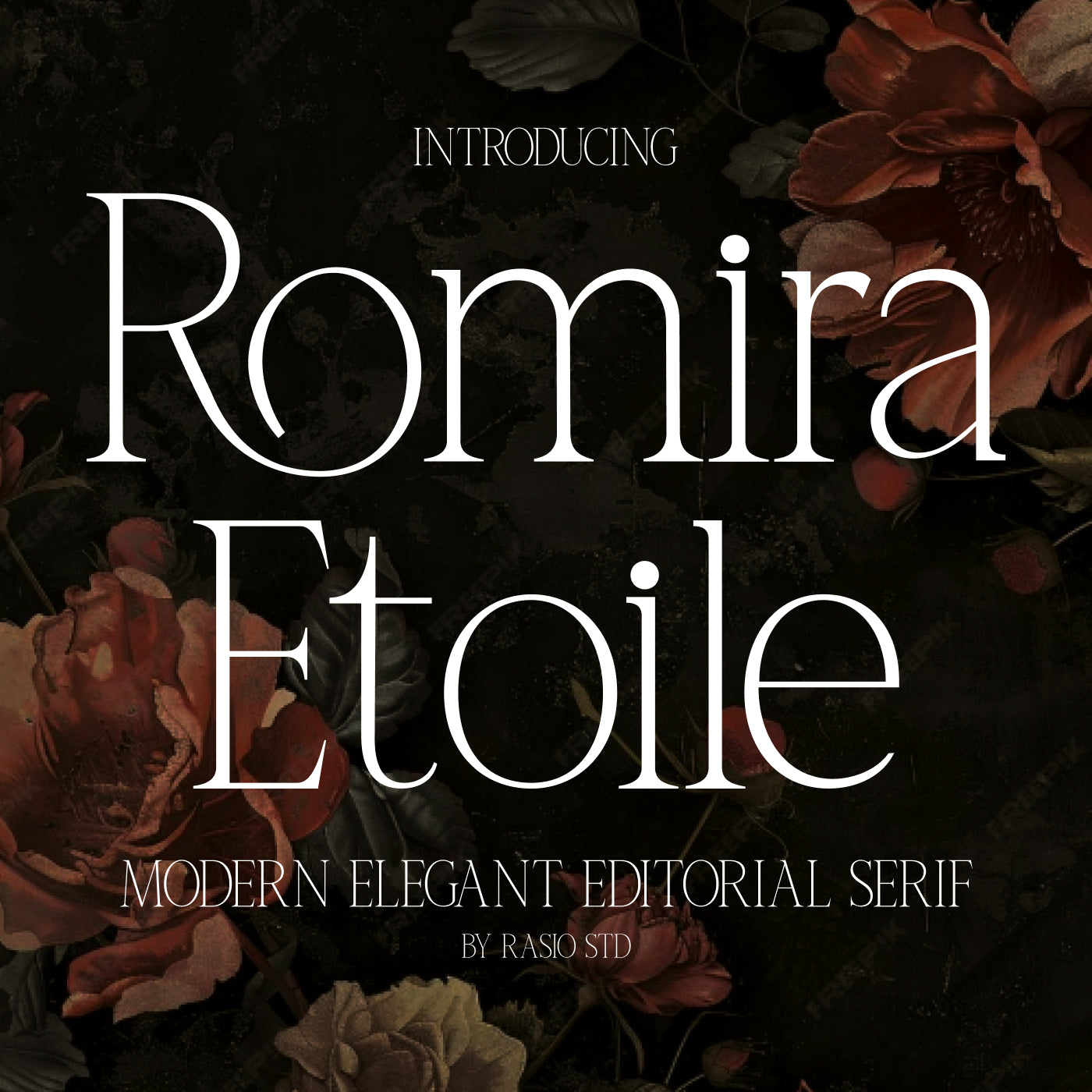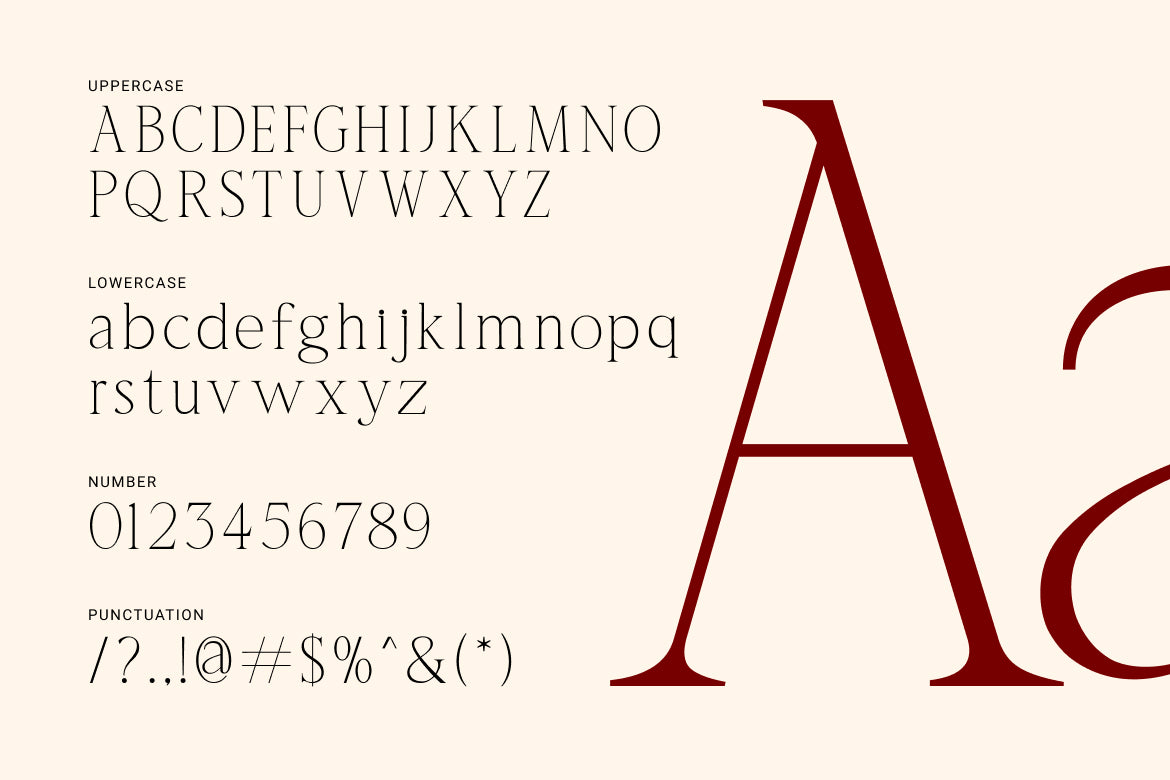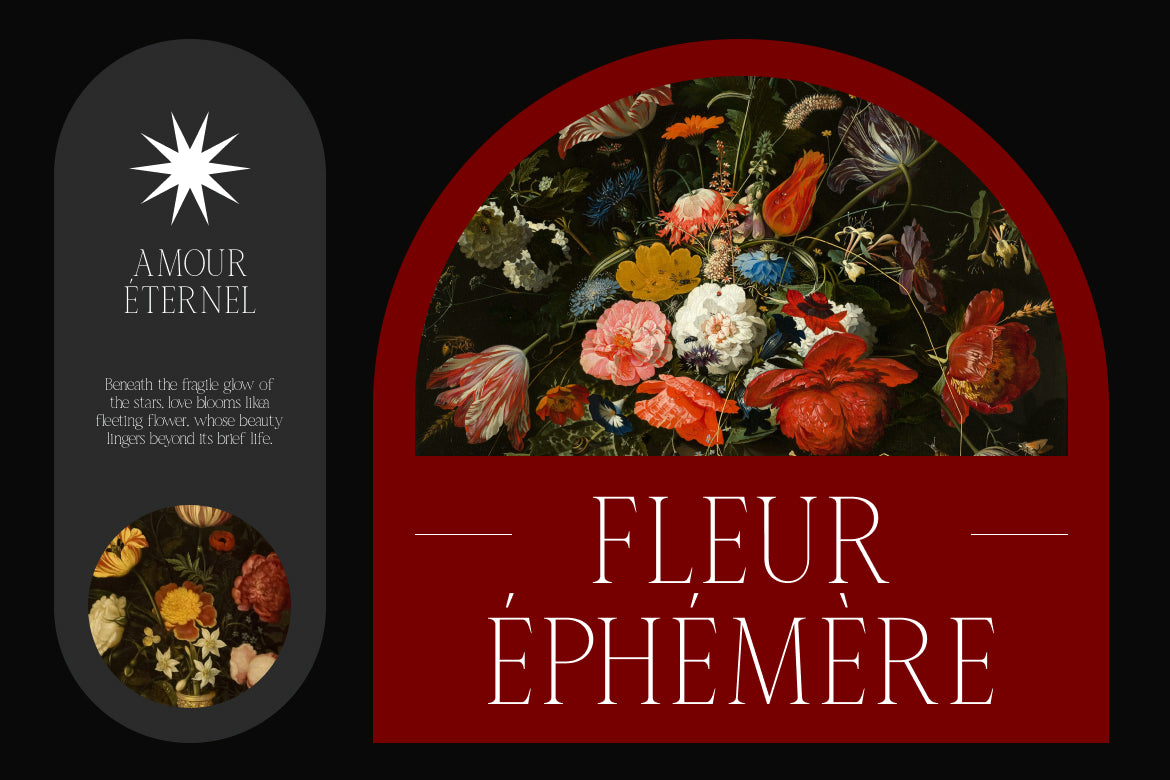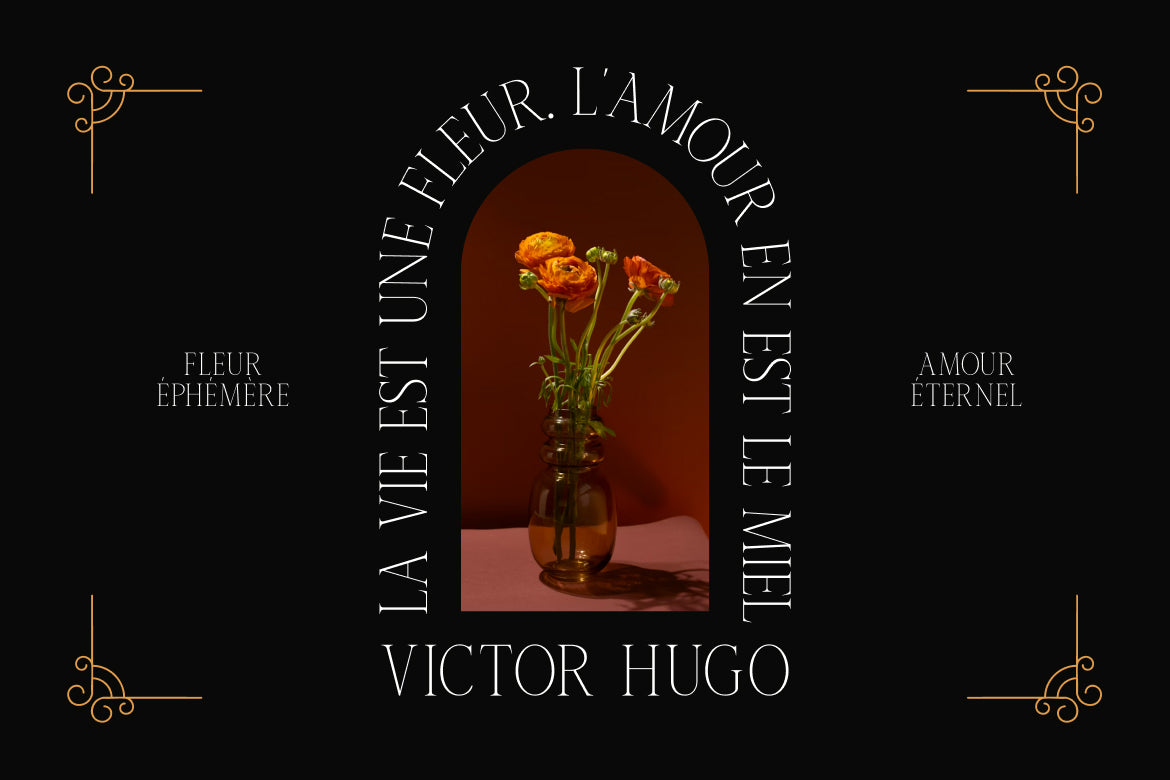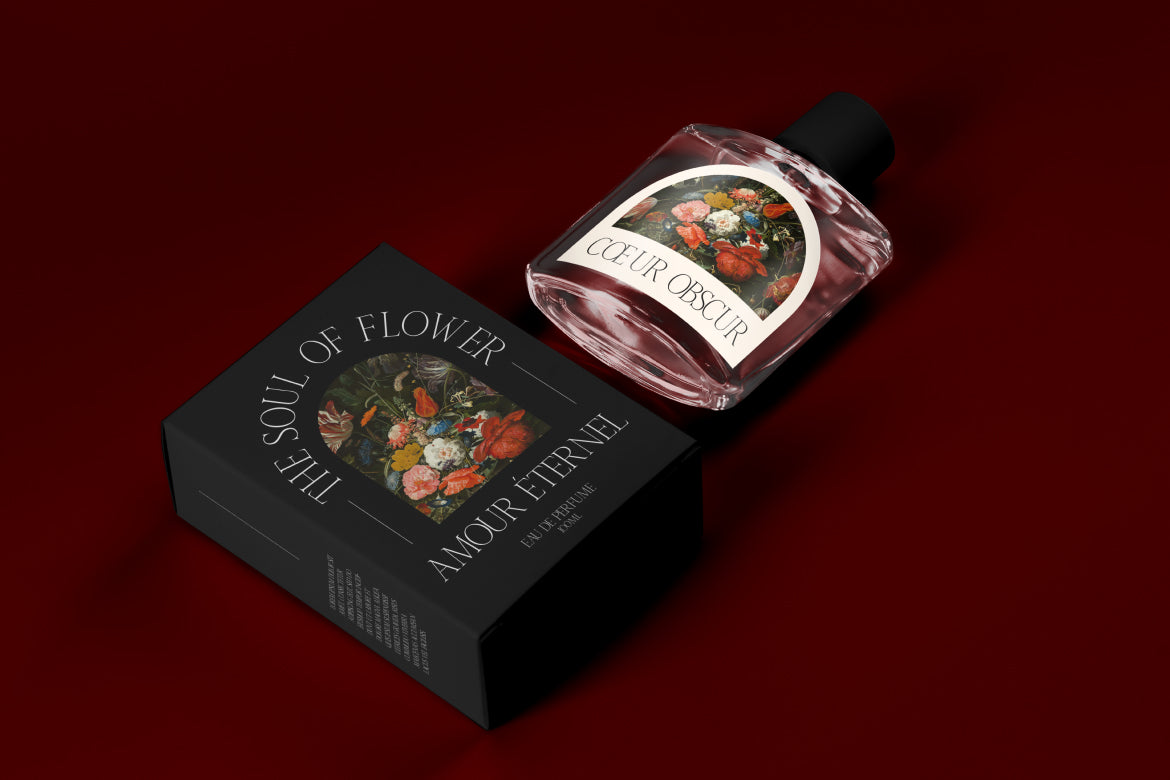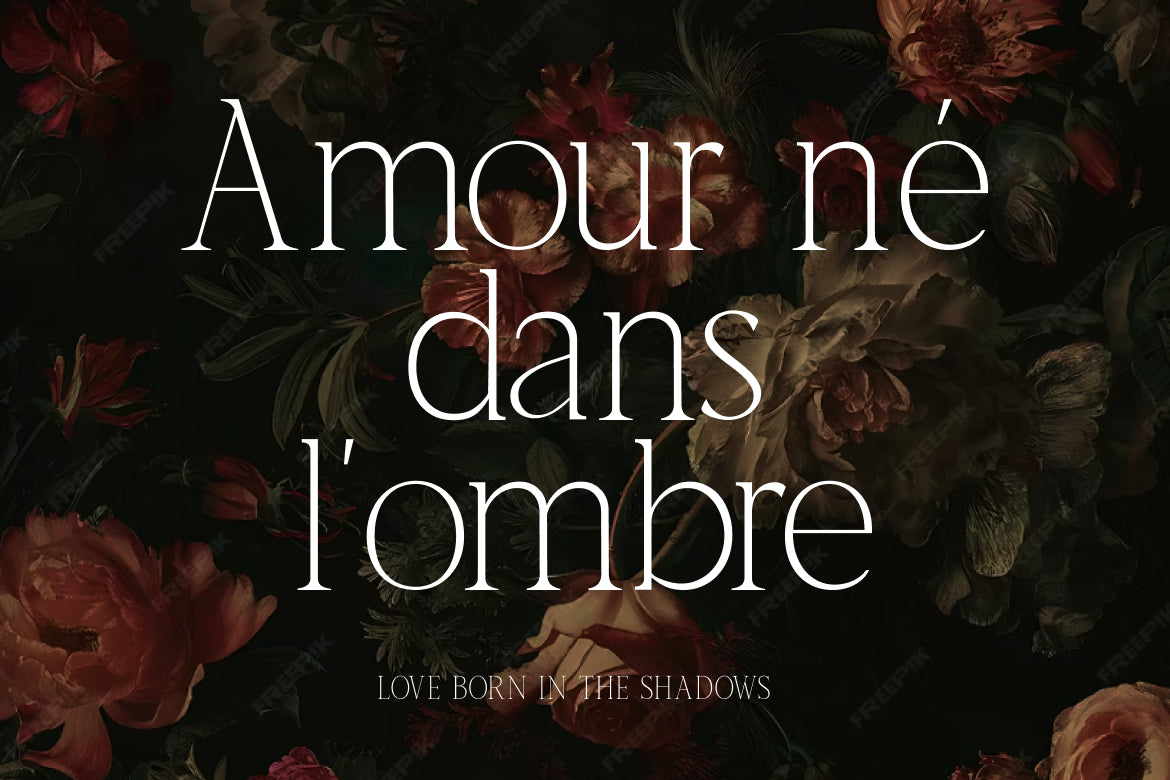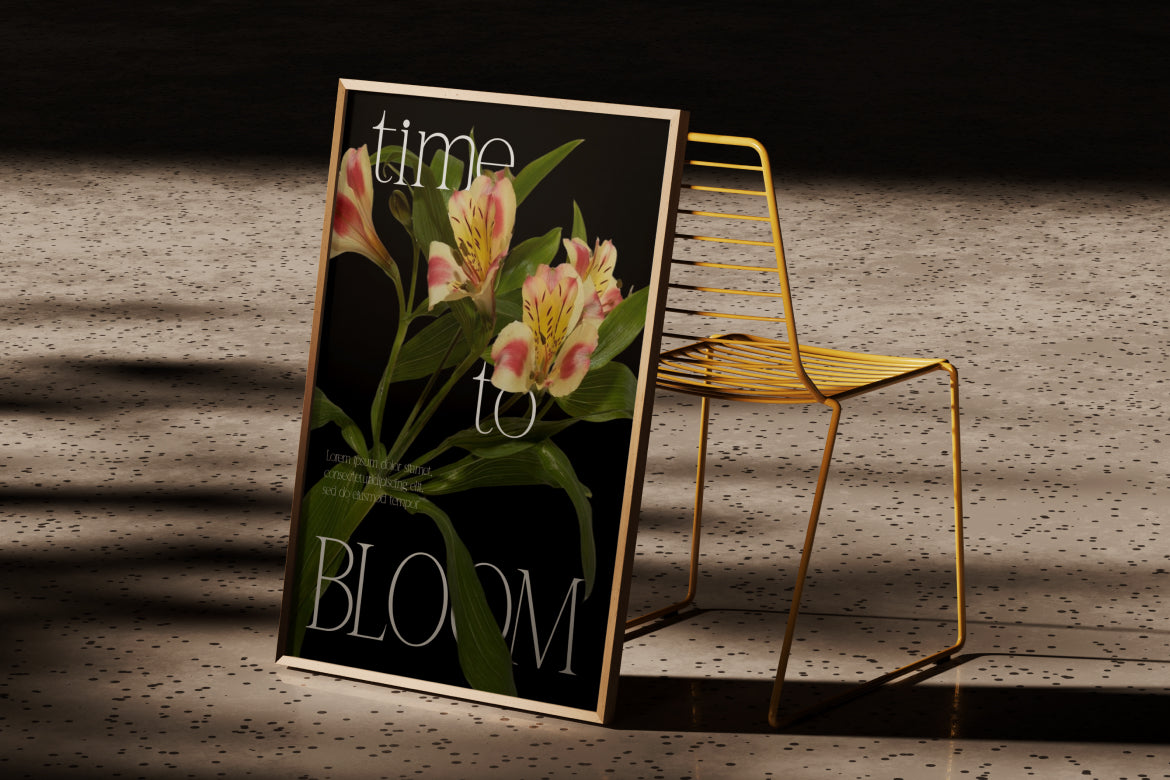
Romira Etoile Modern Elegant Editorial Serif Font
Romira Etoile Modern Elegant Editorial Serif Font is a refined high-contrast serif typeface designed for sophisticated branding, editorial publishing, and luxury visual communication. Combining graceful proportions with delicate hairline details and sculpted serif terminals, the typeface creates an elegant balance between timeless classic typography and contemporary editorial aesthetics. Its harmonious structure delivers a luxurious visual rhythm that commands attention while maintaining exceptional clarity in large display applications.
Each letterform is carefully crafted with elongated proportions, smooth stroke transitions, open counters, and balanced spacing to achieve a polished, premium appearance. The refined contrast between thick and thin strokes enhances readability while adding a distinctive editorial personality suited for fashion, beauty, and luxury industries. Every character is designed to produce clean, sophisticated typography across both digital and printed media without sacrificing visual refinement. Romira Etoile is fully compatible with major desktop publishing, branding, and web design software on Windows and macOS. Optimized for display typography, the typeface excels in luxury logos, editorial headlines, fashion campaigns, premium packaging, wedding stationery, website hero sections, and sophisticated brand identity systems while not intended for extended body copy.